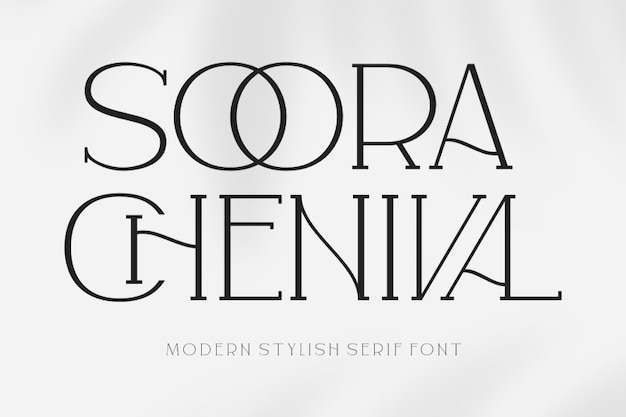
Soora Chenival Font
Soora Chenival is a font that exudes class and elegance with a touch of modern style. Its flowing curves and refined details make it ideal for luxury branding, high-end invitations, and sophisticated editorial layouts. Perfect for projects that require a stylish and polished look, Soora Chenival adds a graceful and timeless touch to any design.
Soora Chenival Regular (400)